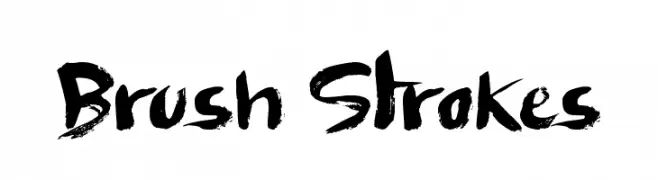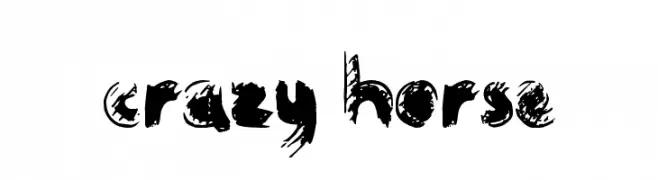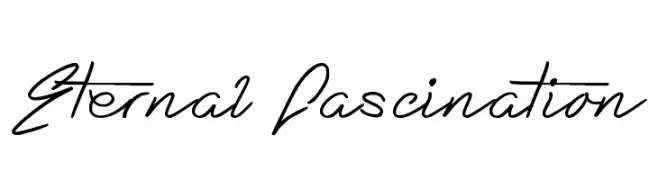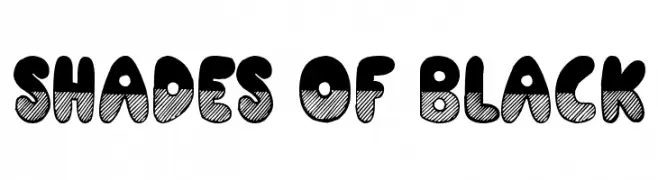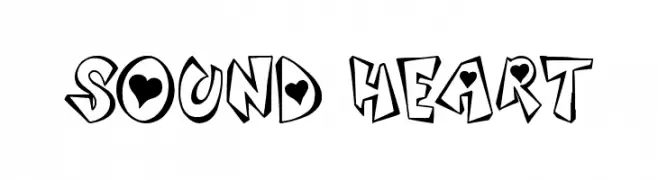
A bold, brush-stroke style font with an artistic and dynamic appearance.
A bold, distressed font with a grunge texture for a rugged, edgy look.
A bold, distressed font with a rugged, hand-drawn appearance.
A flowing, cursive font with elegant, interconnected strokes.
A bold, decorative font with heart motifs and angular, playful characters.
A bold, distressed font with a gritty, urban style.
A bold, brushstroke-style font with dynamic, hand-painted characteristics.
A bold, playful font with unique shading and rounded characters.
A bold, jagged font with a distressed, rebellious style.
A cursive, handwritten font with elegant, flowing strokes.